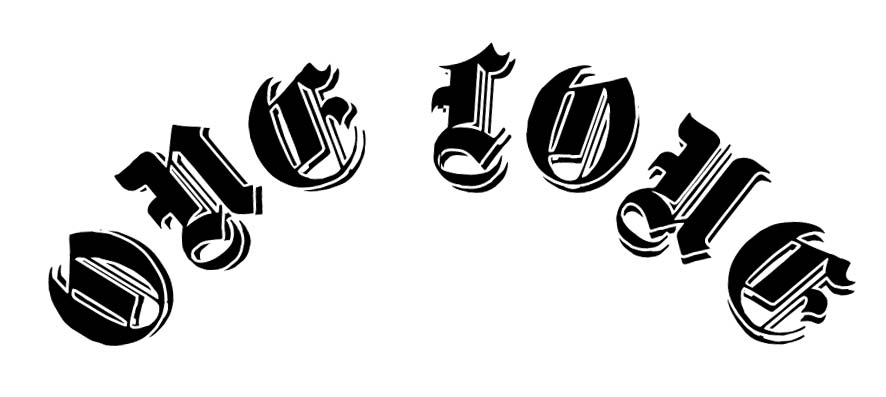
I am planning my next tattoo. I am not good with photoshop or designing. But I need some help with fonts and the design. I am getting it on the top of my forearm. It is going to read "One Love" it is dedicated to my grandmother. I was thinking of three types of fonts. Something cursive, gothic or angelican style. Not too sure how thick I want the font to be though. The words should also be slightly curved almost as if they were forming a semi circle. Can some one help me with designs. Who knows if I really like it I will get it tattooed and your work will be on my body for ever.
You shouldn't really need a design for that. Any decent tattooist will know exactly what you mean and draw up the design for you.
How's this?
Hi, hope the tattoo goes well, here are some options for you. I've pu the name of the font next to it so you can reference it if you need to.
which, if you find a font you like in a magazine, you could scan in the letters, find out what it is called and then you will be able to use that font to make up your tattoo design.